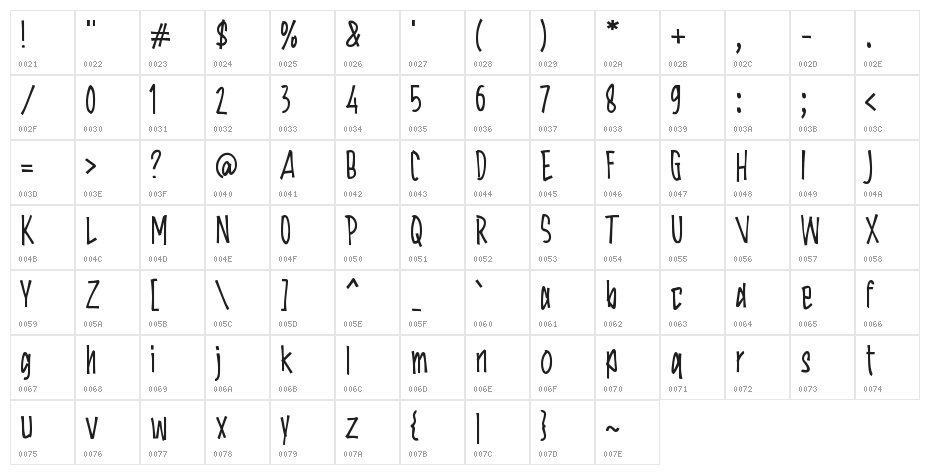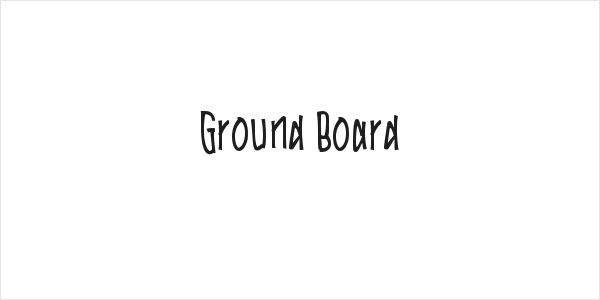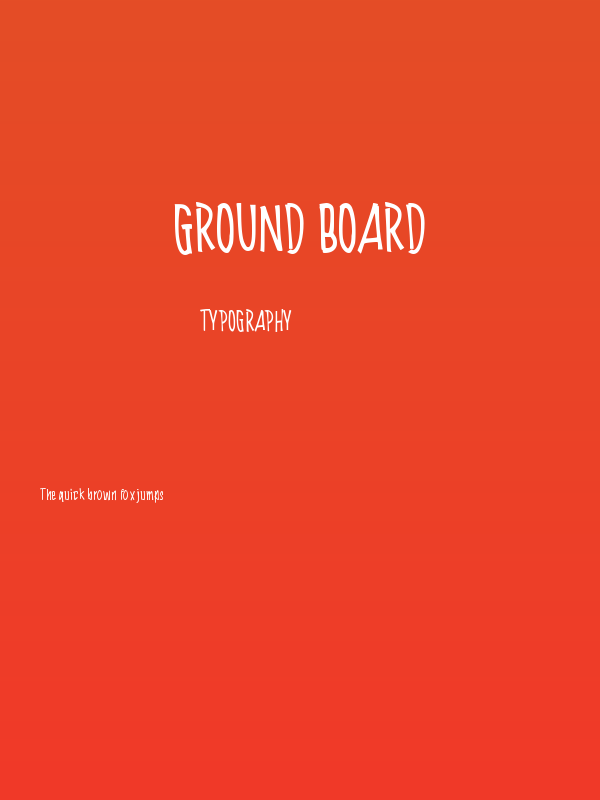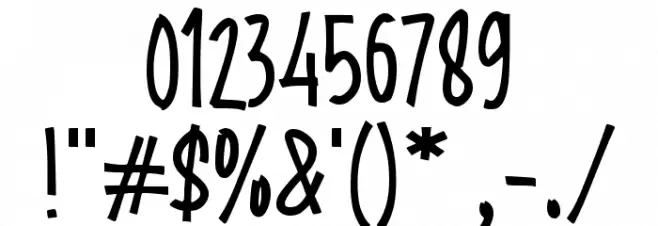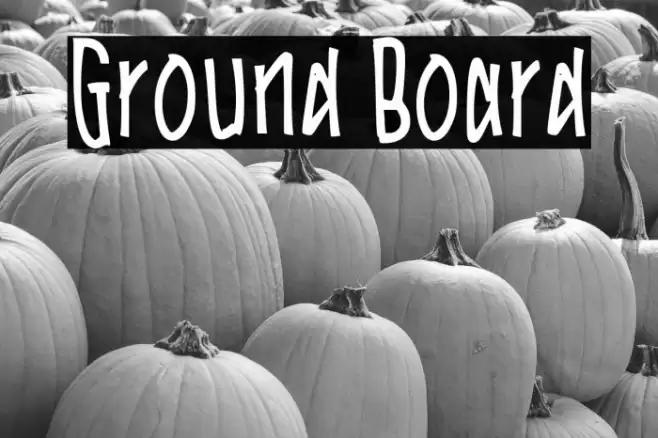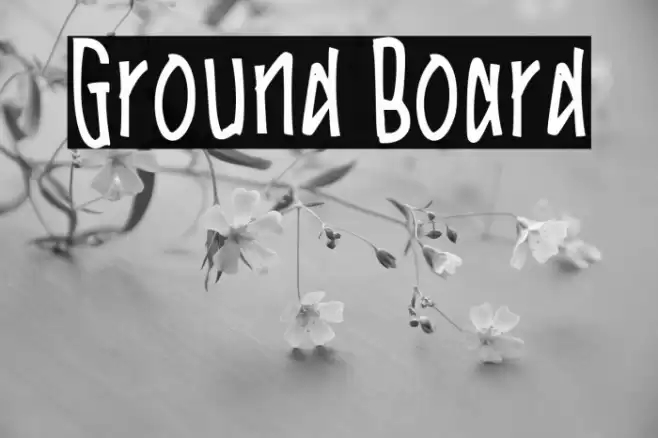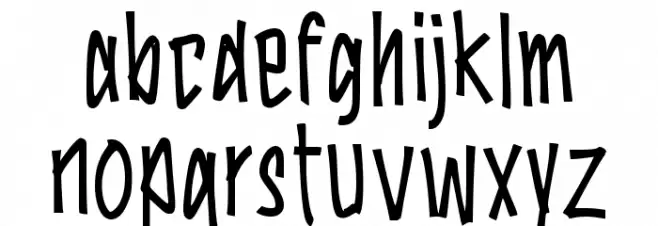
Ground Board Font
Ground Board Description
This font features a playful and informal handwritten style, characterized by its tall, narrow letters and slightly irregular strokes. The uppercase and lowercase letters maintain a consistent height, giving it a cohesive appearance. The numbers and special characters follow the same whimsical design, adding to its charm. The strokes are moderately thick, providing a medium contrast that enhances readability while retaining a casual feel. This font's unique personality makes it suitable for projects that require a touch of creativity and fun.